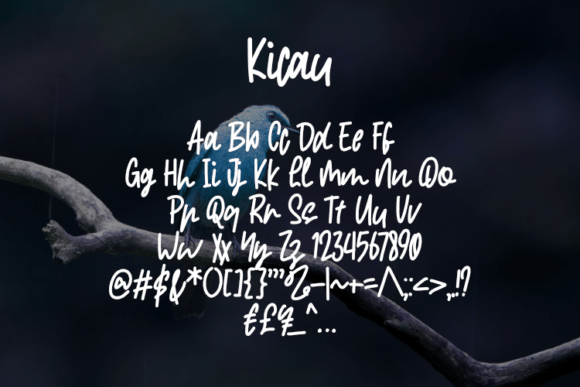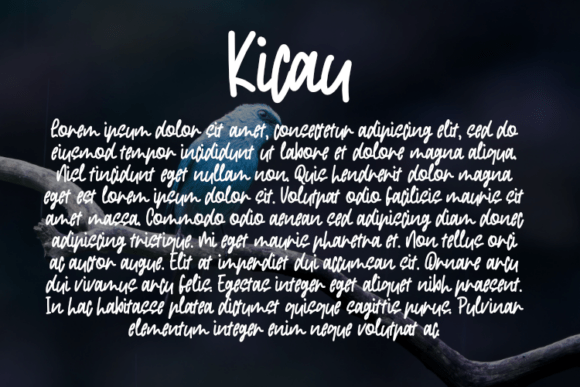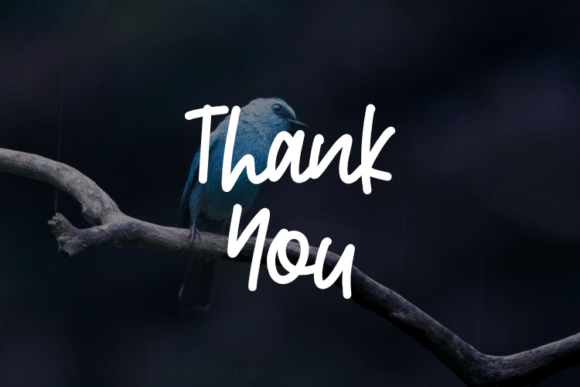
The Perfect Harmony of Design: Introducing the Kicau Font
As designers, we’ve all been there – staring at a blank page, searching for the perfect font to bring our vision to life. The moment when everything clicks, and the words start flowing, is pure magic. And that’s exactly what we’re here to talk about – the Kicau Font, a modern and elegant typeface designed to take your designs to the next level.
Kicau Font Key Features
- Unique Characteristics: This font features a unique blend of traditional and modern elements, with intricate details and subtle texture, making it ideal for creative and artistic projects.
Kicau Font Review
Overall, I think Kicau Font has some great features, but it also has its limitations. Let’s dive in and see what I mean.
- ✨ Unique and playful design: Kicau Font has a really fun and quirky feel to it, which can be perfect for creative projects or brands that want to stand out.
- ✨ Good legibility: Despite its playful nature, Kicau Font is still easy to read, even at smaller font sizes.
- ✨ Versatile: Kicau Font comes in a range of weights and styles, making it suitable for a variety of applications, from headings to body text.
- ⚠️ Limited language support: Unfortunately, Kicau Font only supports a limited number of languages, which may be a problem for projects that require multilingual support.
- ⚠️ Not ideal for body text: While Kicau Font is great for headings and titles, it may not be the best choice for body text, as it can be a bit too playful and distracting.
Kicau Font is a fun and versatile font that can add a touch of personality to your designs. However, its limitations, such as limited language support and not ideal for body text, may hold it back from being a go-to font for all projects. Still, it’s definitely worth considering for the right project.
Tips for Getting the Most Out of Kicau Font
Experiment with different font sizes and styles to achieve the desired effect.
Use Kicau Font in conjunction with other design elements to create a cohesive look.
Consider using Kicau Font in bold or italic to add emphasis to your text.
Kicau Font is commonly used in:
– Branding and marketing materials
– Web design
– Print materials such as business cards and brochures
Alternatives to Kicau Font for Designers
Great Vibes is a beautiful script font that works well for headings and titles. It’s ideal for creating a sense of elegance and sophistication in your designs. Great Vibes has a more refined and polished look compared to Kicau Font, which can be more playful and casual.
Pacifico is a popular script font that’s perfect for creating a relaxed and beachy vibe in your designs. It’s ideal for use in branding, advertising, and packaging. Pacifico has a more laid-back and casual feel compared to Kicau Font, which can be more energetic and playful.
Carolyna Pro is a modern script font that’s great for creating a sense of luxury and sophistication in your designs. It’s ideal for use in high-end branding, advertising, and packaging. Carolyna Pro has a more refined and elegant look compared to Kicau Font, which can be more playful and casual.